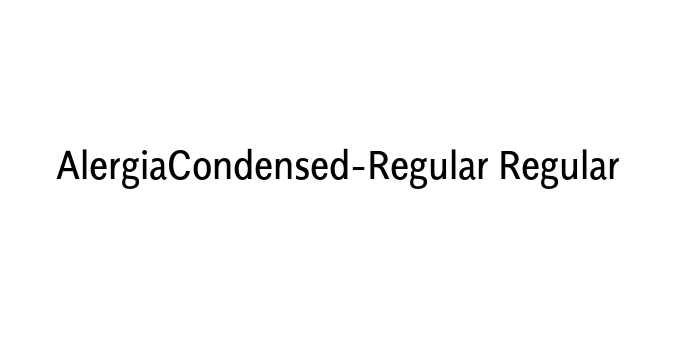
AlergiaCondensed-Regular Regular
Designed by Mateusz Machalski
Alergia Condensed Regular is a sophisticated sans-serif typeface that represents a hybrid approach to modern typography. Developed by the renowned Polish designer Mateusz Machalski, this font family blends the structural integrity of geometric forms with the approachable legibility of grotesque and humanist styles. Its condensed proportions are meticulously crafted to maximize space efficiency without sacrificing the visual clarity required for professional editorial and digital environments.
The Regular weight of the Alergia Condensed family features open apertures and a neutral yet distinct personality. It is part of a larger, versatile system that focuses on technical precision and aesthetic balance. Because of its vertical stress and clean construction, it excels in complex information hierarchies, making it a reliable choice for everything from high-density data tables to sleek, contemporary branding projects.
AlergiaCondensed-Regular Best Uses
Excellent for magazines and journals where column space is at a premium.
Conveys a sense of modern authority and technical reliability.
Highly legible for navigation bars and secondary UI elements.
Creates clean, impactful headlines that draw attention without feeling bulky.